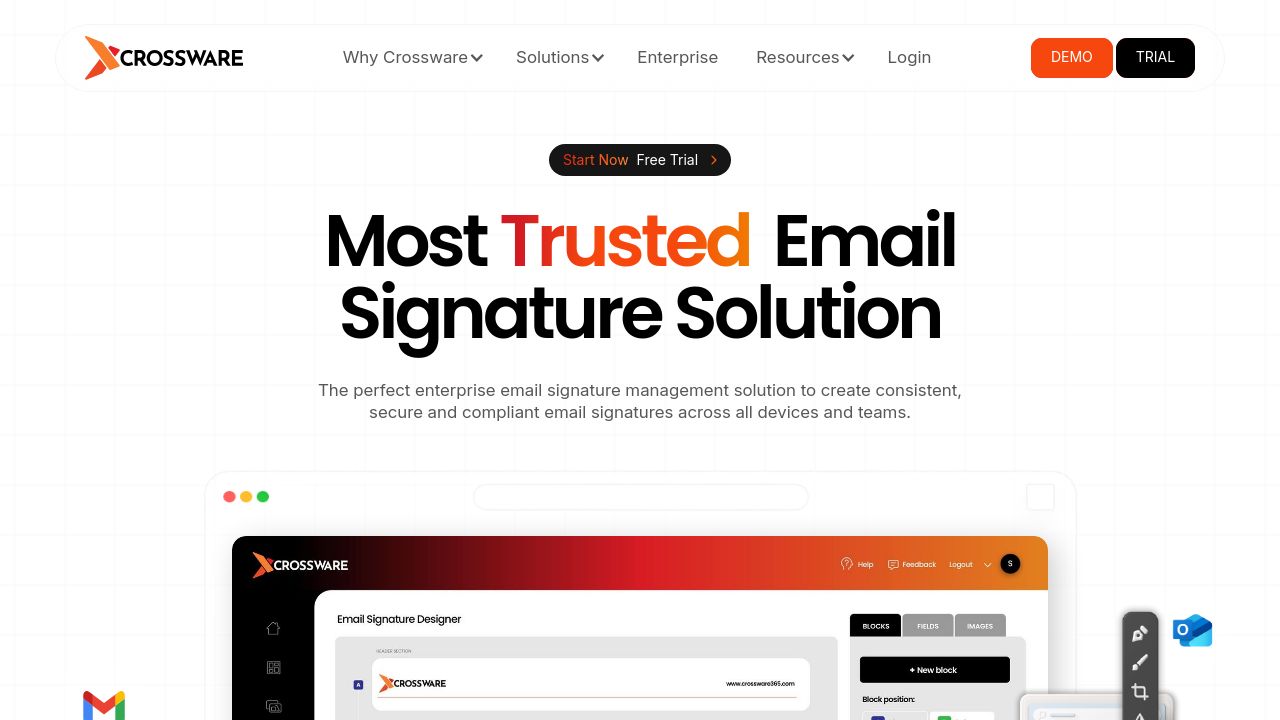
What fonts does Crossware365 use?
Crossware365.com, a leader in email signature management for medium and large enterprises, incorporates a diverse range of fonts to enhance its digital presence. The use of Arial and Helvetica Neue provides familiarity and reliability, while Inter, with its extensive weight options, offers versatility vital for various applications. Poppins adds a touch of warmth, and webflow-icons contribute to user-friendly navigation. These font choices reflect Crossware's commitment to clarity and functionality in their software solutions.
Frequently asked questions about Crossware365.com's fonts
What primary fonts are used on crossware365.com?
Crossware365.com primarily uses Arial, Helvetica Neue, Inter, and Poppins. Arial is a system font, while the others are custom fonts designed for the site.
How does Inter compare to other fonts used on the site?
Inter offers a wide range of weights from 100 to 900, making it highly versatile compared to other fonts like Arial, which has a single weight option.
What styles or weights does Poppins offer on crossware365.com?
Poppins is used in weight 700 on crossware365.com, providing a bold and impactful presence within the site's design and content.
What fallback fonts does crossware365.com use?
The fallback fonts include Roboto, Segoe UI, Ubuntu, and Cantarell. These ensure good readability and visual consistency across various devices.